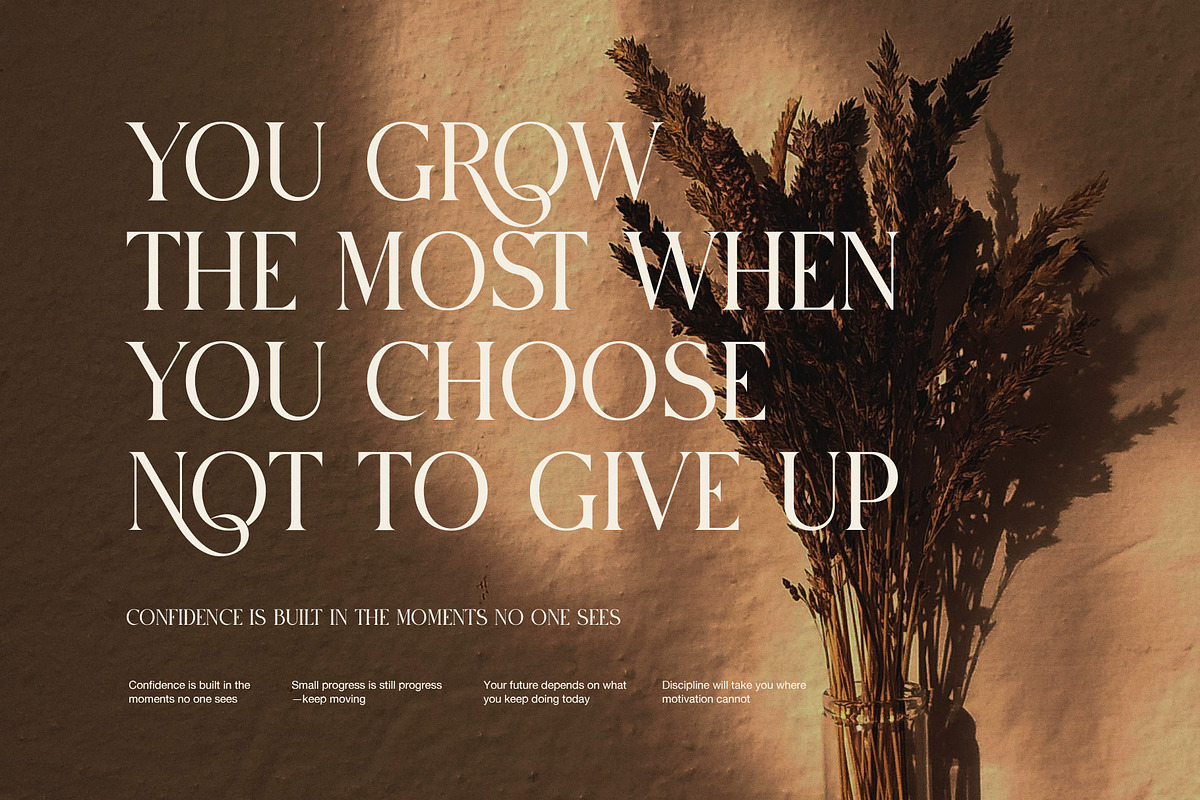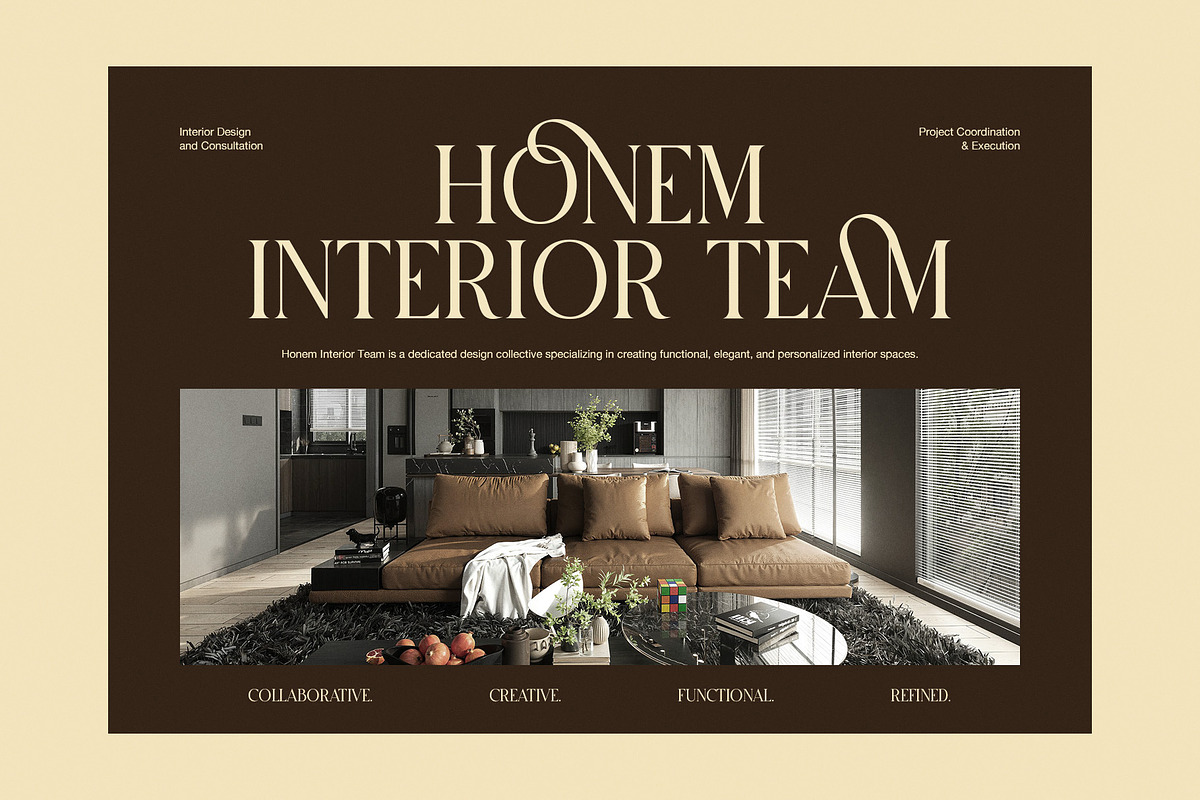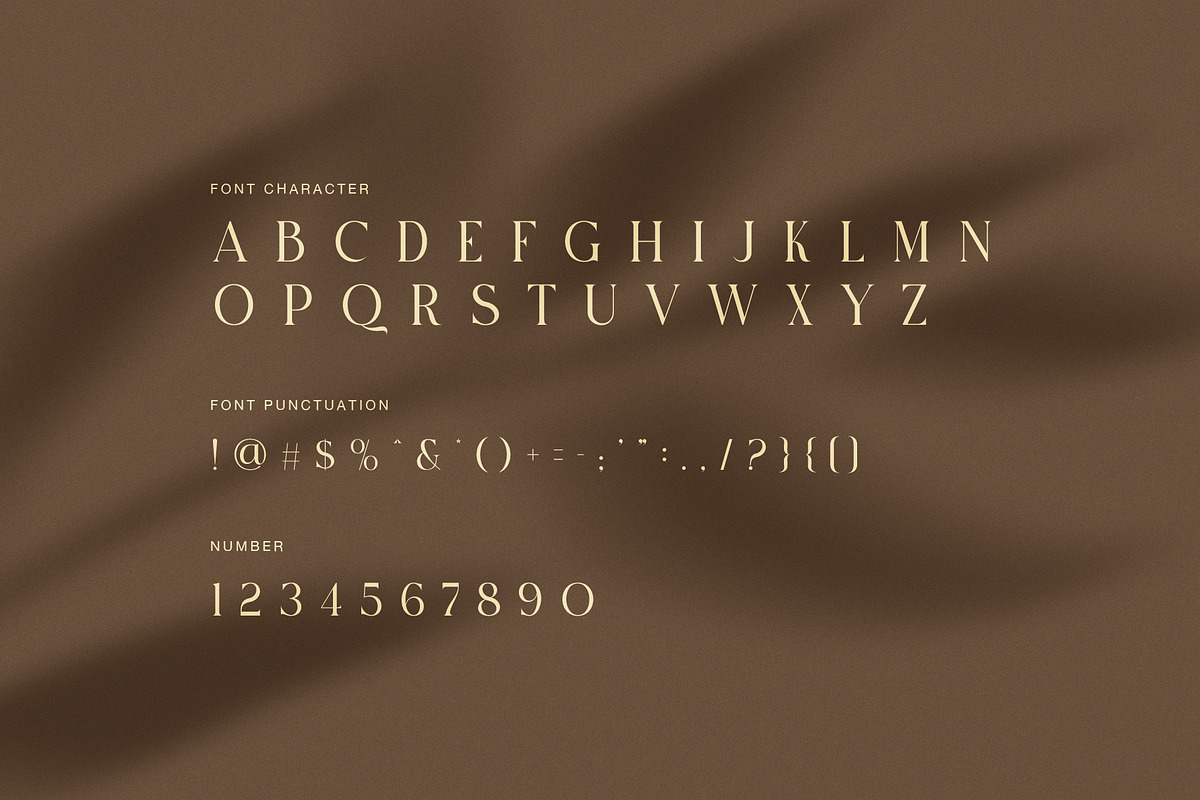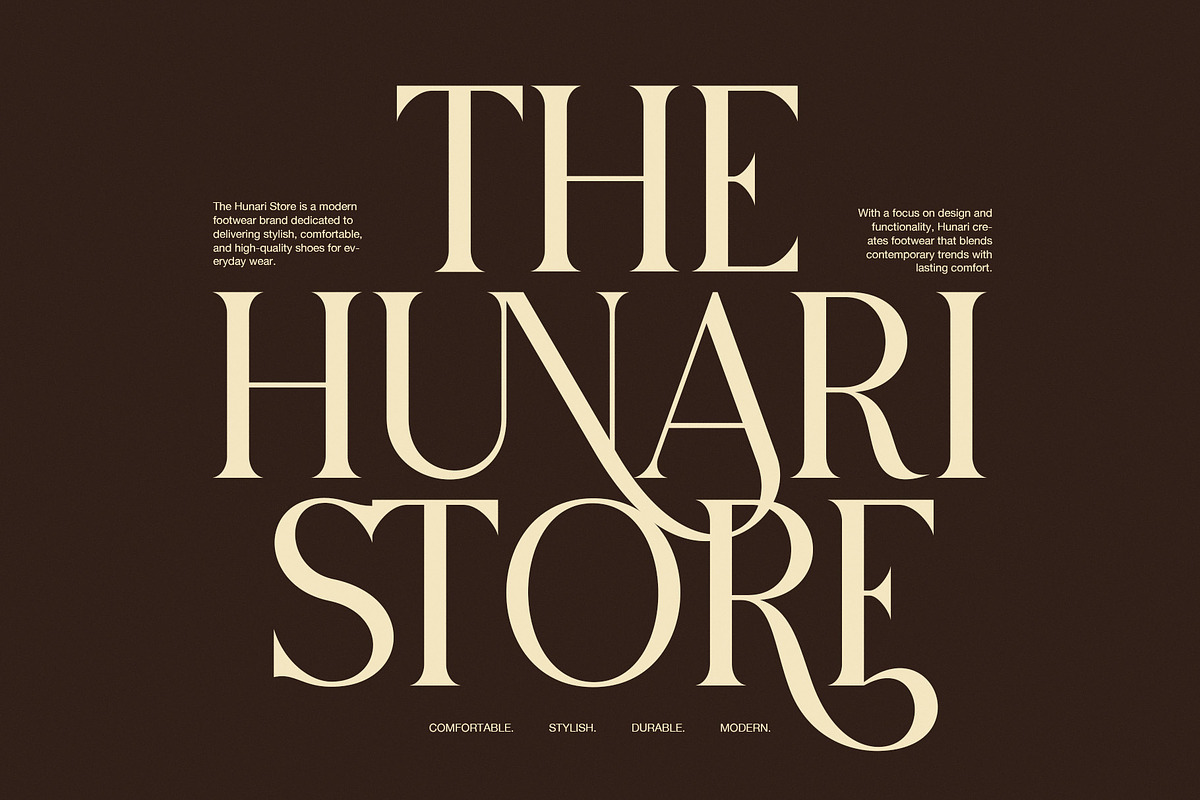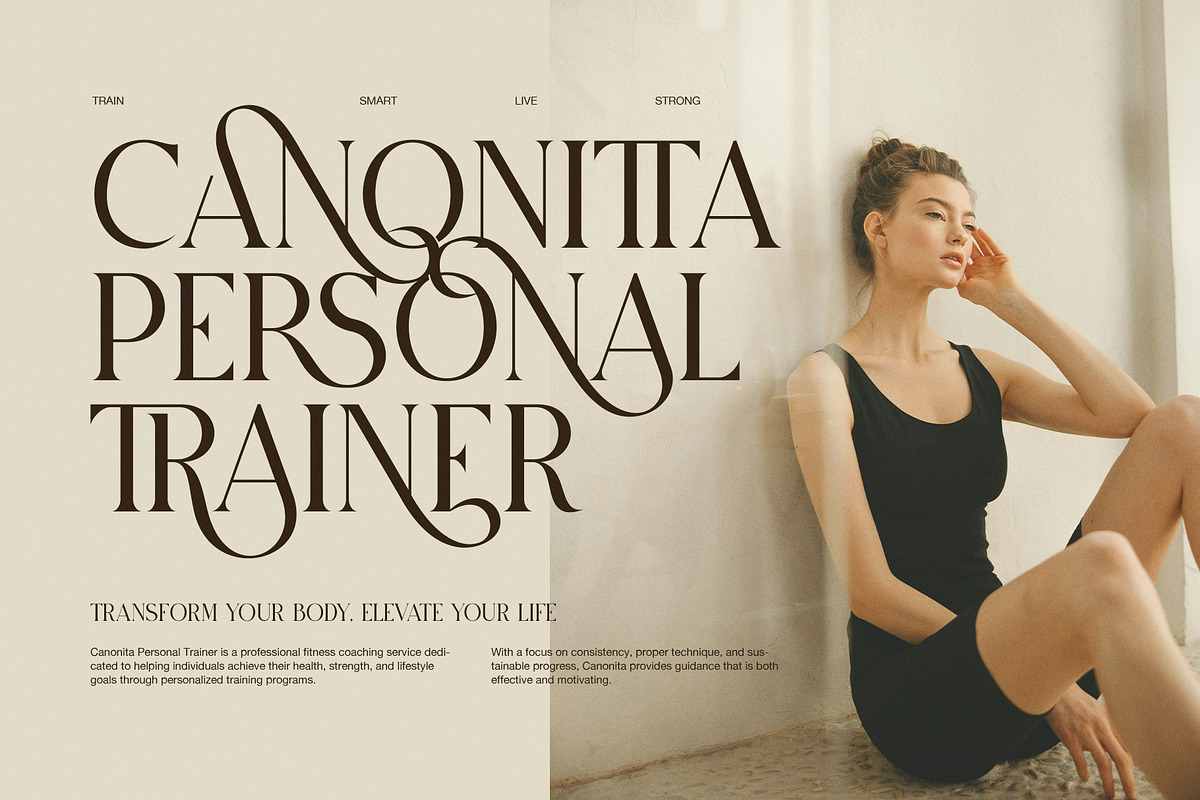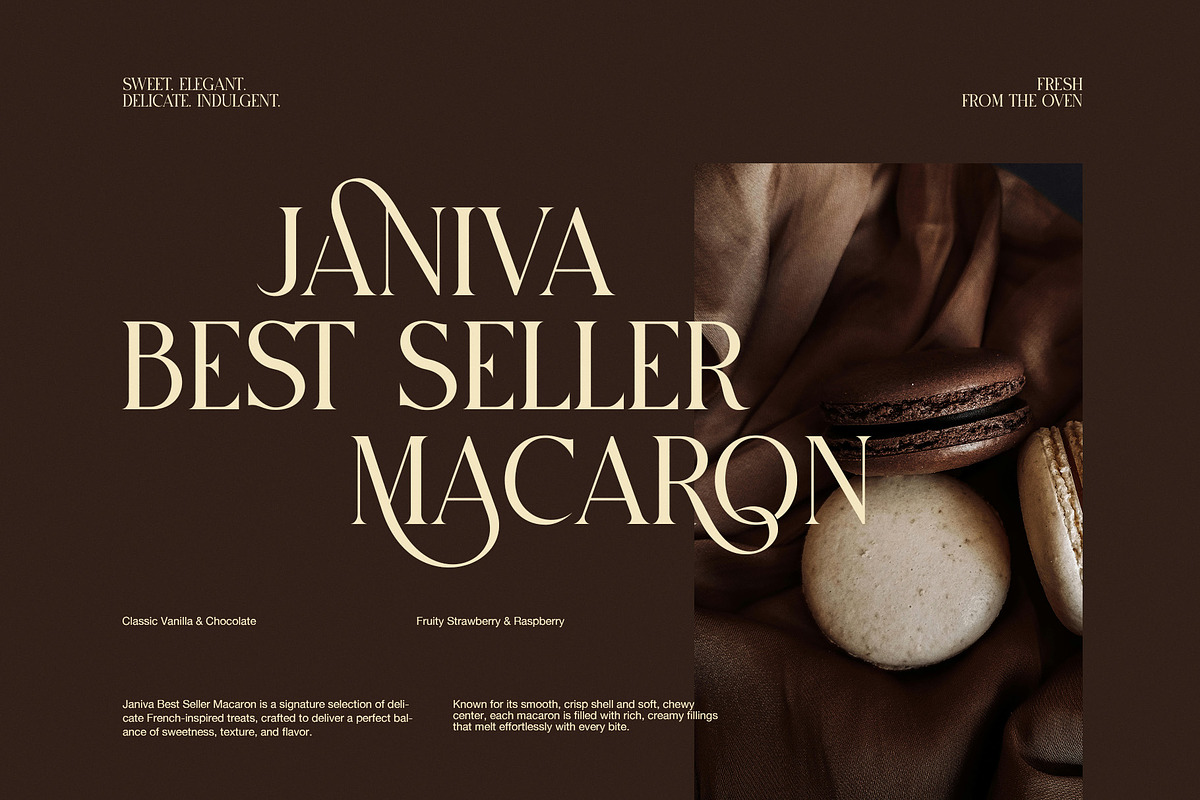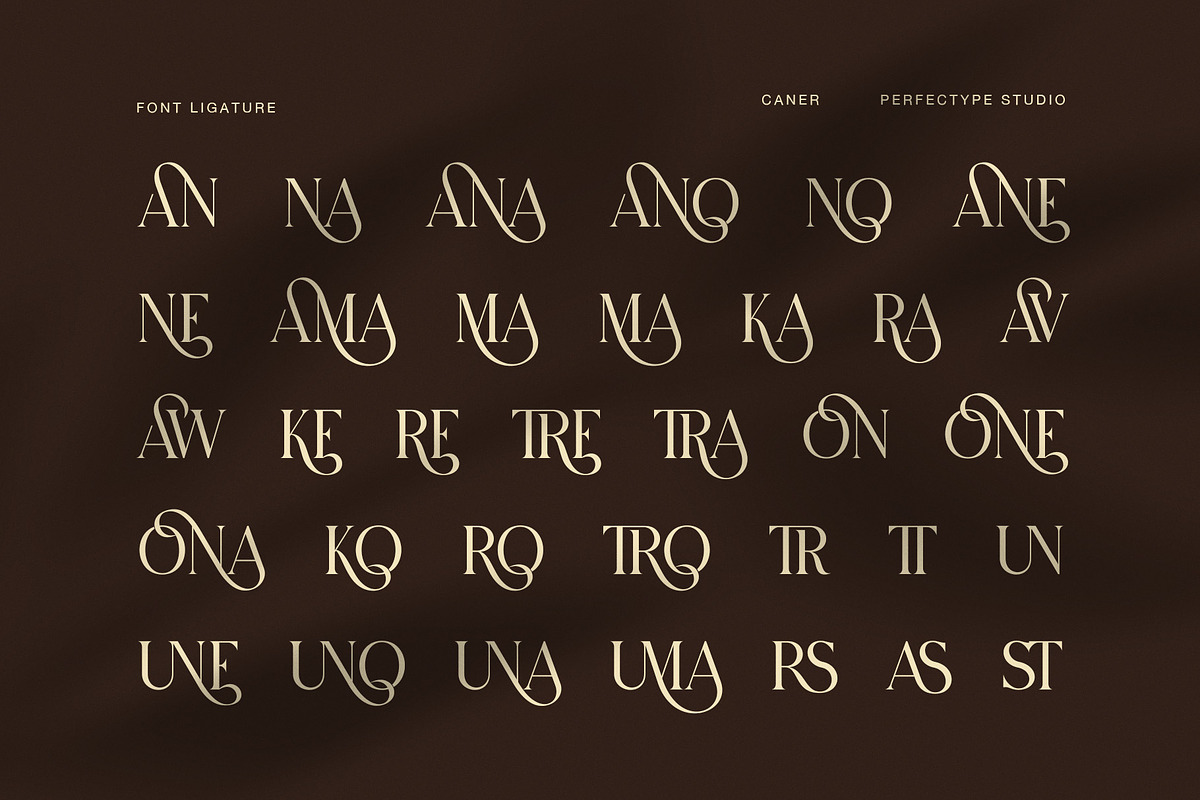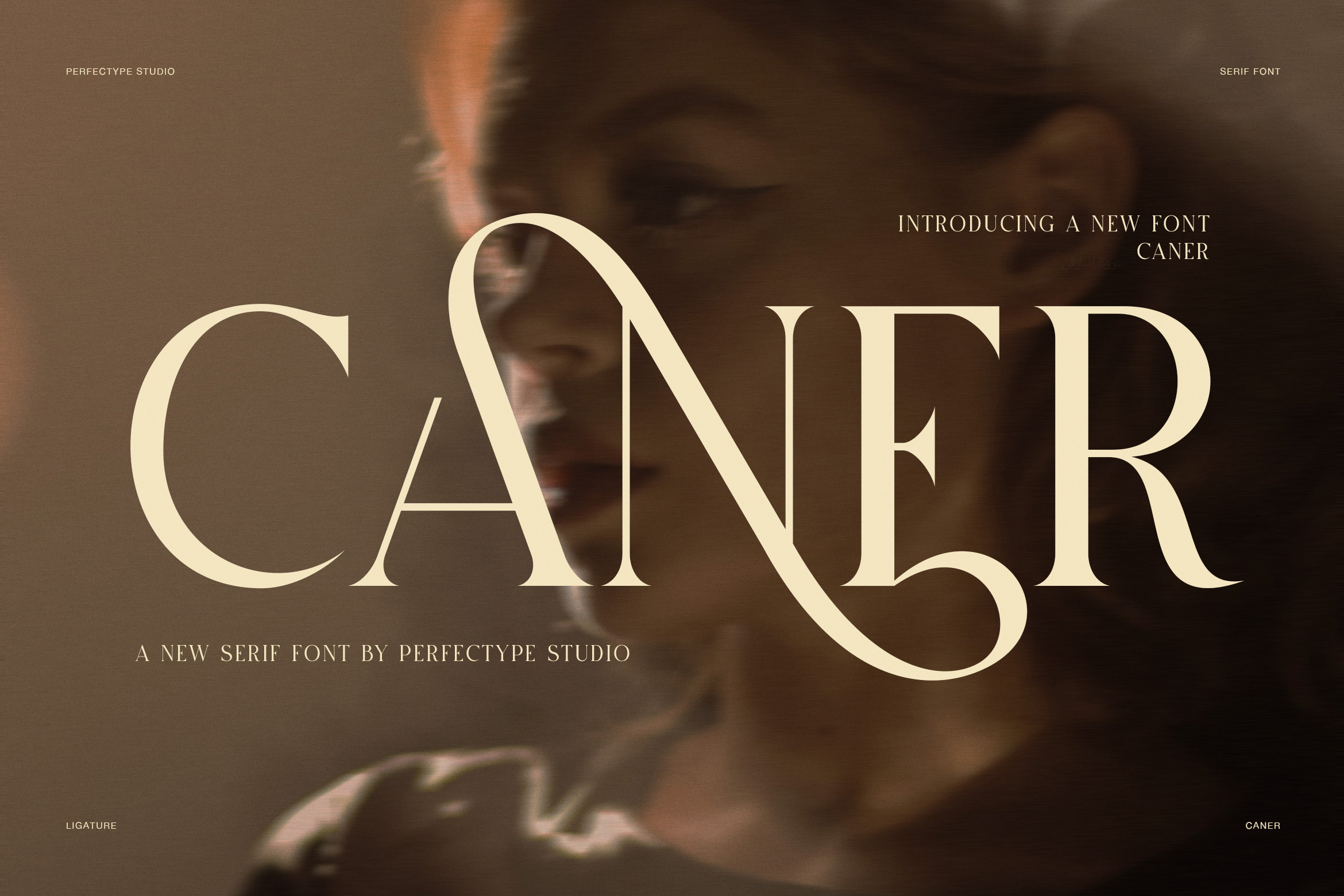
Caner Elegant Ligature Serif Font
Caner is an Elegant Ligature Serif Font created for designers who want refined typography with artistic character and timeless appeal. Inspired by luxury editorials, premium branding, and modern fashion aesthetics, this typeface combines graceful serif construction with flowing ligatures that transform simple words into memorable visual statements. As a result, every headline feels sophisticated, stylish, and effortlessly distinctive.
The letterforms feature high contrast, balanced proportions, and delicate curves that give the font a luxurious personality. Meanwhile, the handcrafted ligatures introduce elegant connections between selected characters, creating a custom lettering effect without losing readability. Because of this balance, Caner performs beautifully in both large display sizes and premium branding materials.
Designed with versatility in mind, Caner is suitable for creative professionals across many industries. Whether you are designing a luxury logo, fashion campaign, beauty brand, interior studio identity, boutique packaging, or editorial magazine, this serif font provides a polished and premium appearance. Furthermore, its decorative ligatures help create unique wordmarks that instantly capture attention.
Unlike ordinary serif fonts, Caner delivers expressive elegance while remaining clean and professional. Therefore, it works equally well for printed products and digital projects. In addition, the graceful swashes and stylish ligature combinations bring movement and personality to every composition without becoming overwhelming.
Luxury branding
Fashion logos
Editorial headlines
Beauty packaging
Cosmetic brands
Interior design studios
Furniture branding
Boutique businesses
Wedding invitations
Restaurant identities
Café menus
Premium product packaging
Photography portfolios
Lifestyle magazines
Caner offers a harmonious blend of classic sophistication and contemporary style. Consequently, it becomes an excellent choice for designers who need typography that communicates elegance, confidence, and exclusivity. Every curve, terminal, and ligature has been carefully refined to create a smooth reading experience while adding artistic flair to each design.
If your project calls for typography that feels luxurious, fashionable, and memorable, Caner provides the perfect solution. From premium logos and elegant editorials to packaging, invitations, websites, and marketing materials, this elegant ligature serif font elevates every design with timeless beauty and refined craftsmanship. It is a dependable choice for creatives who value quality typography that leaves a lasting impression.